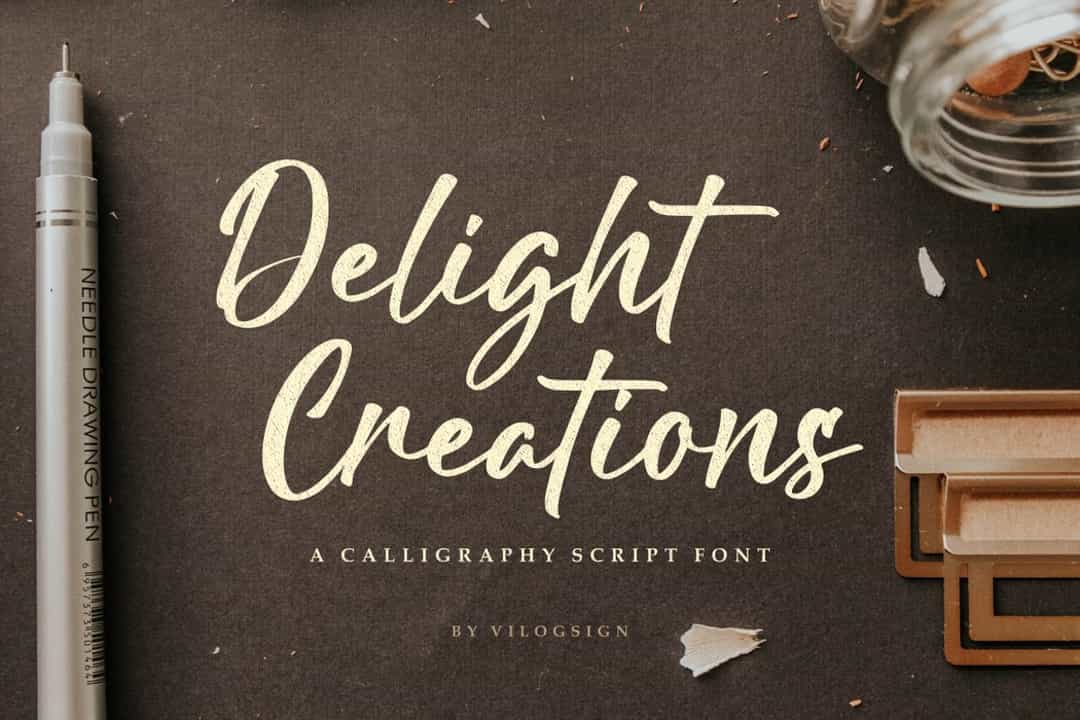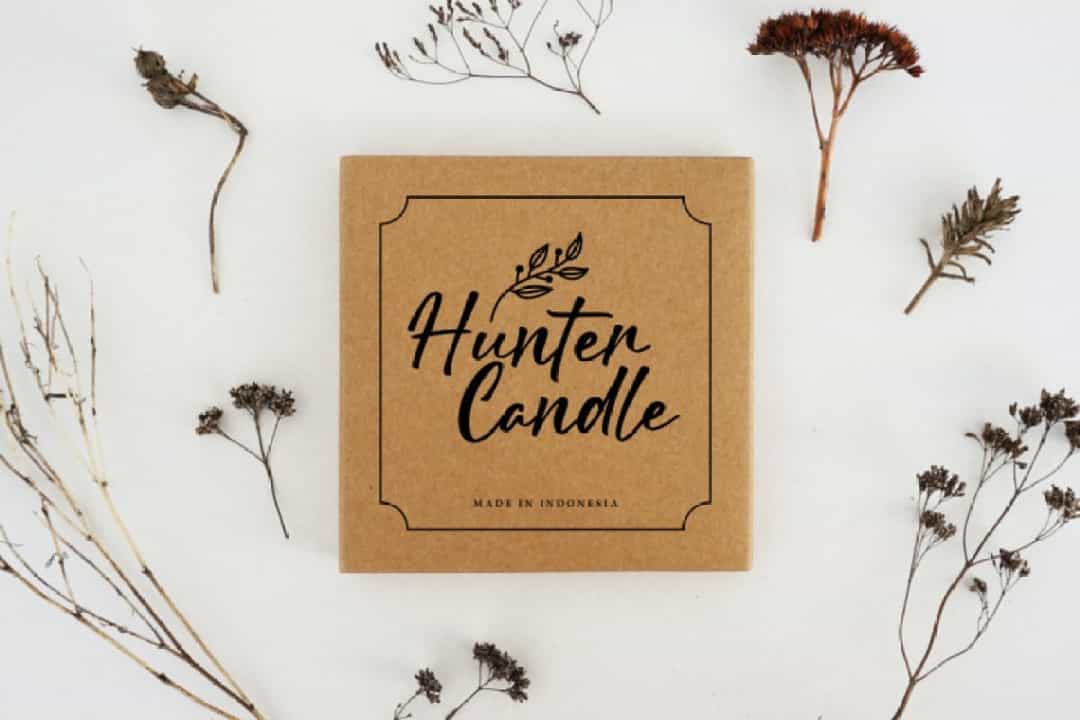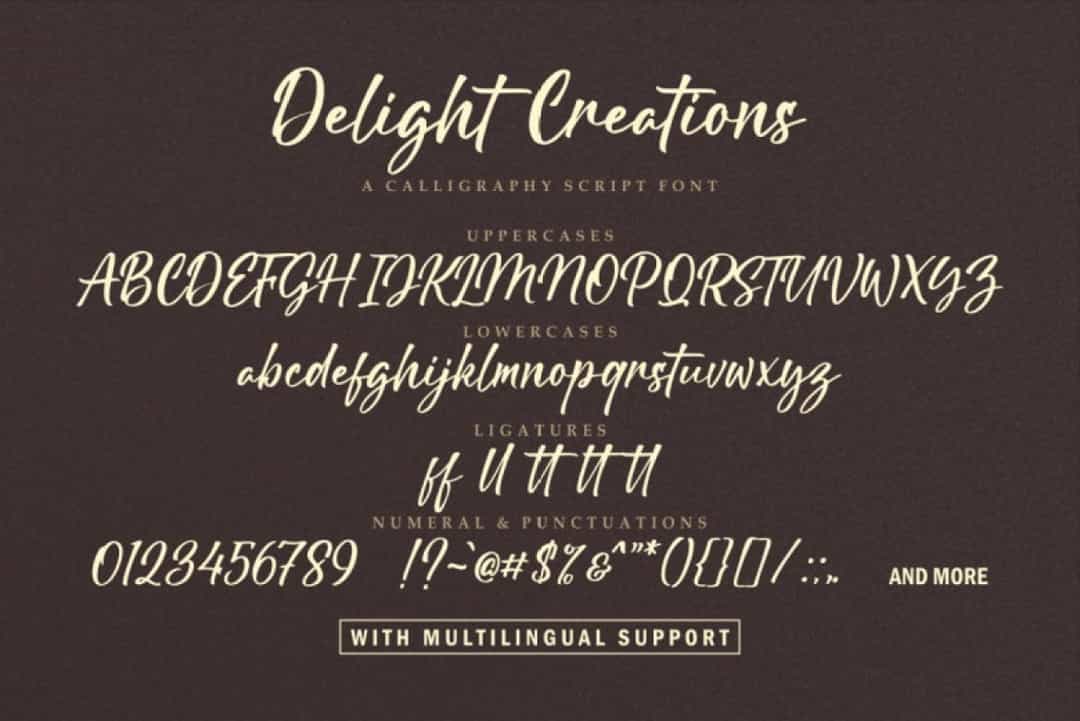
Delight Creations is a very nice calligraphy script typeface that would be perfect for any project. It has been designed with utmost care to provide you with a product that is unique for all your designing requirements whether it is logo, t-shirt designs, magazine logos, fashion quotes, packaging designs or anything else! Delight Creations include multilingual support which means that it will be able to meet all of them without any problem.